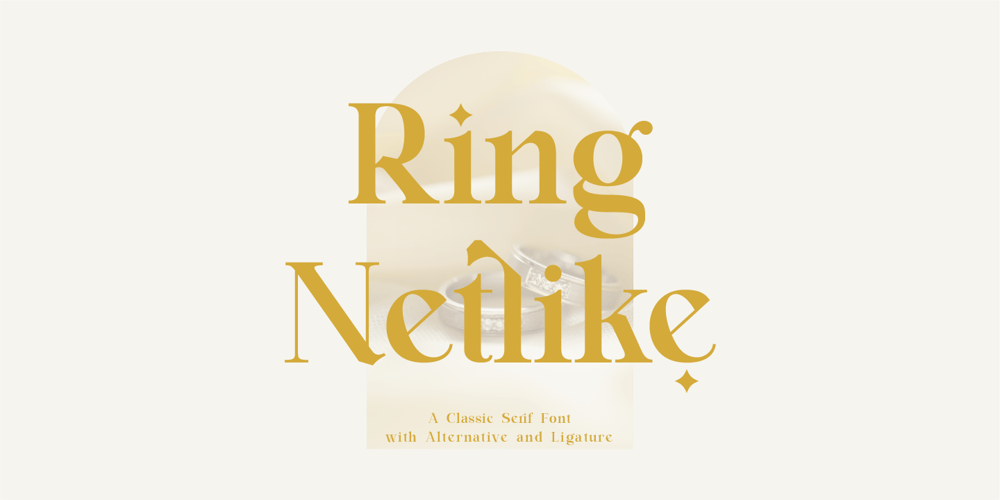
Ring Netlike
Ring Netlike font
Ring Netlike Font Family was designed by Farida Kurniawan and published by Fridaytype. Ring Netlike contains 1 styles and family package options. Ring Netlike – Classic Serif FontRing Netlike is a classic serif typeface called weiss roman. A unique modern font that is a mix of old and new. The Elegant curves also make for a unique logo or masthead. Ring Netlike comes with multilingual support also. The combination with the width of each letter forms a modern feel and is suitable for various magazines, logos, branding, photography, invitations, wedding invitations, quotes, blog headers, posters, advertisements, postcards, books, websites, etc.Files Includes:- Uppercase & Lowercase- Numerals & Punctuation- Multilingual- Ligature- AlternativeFridaytype